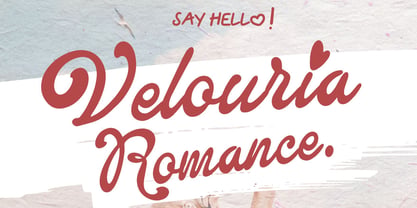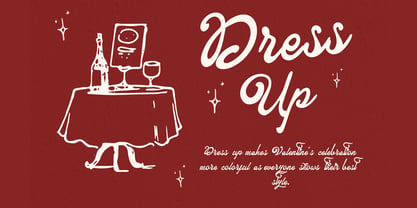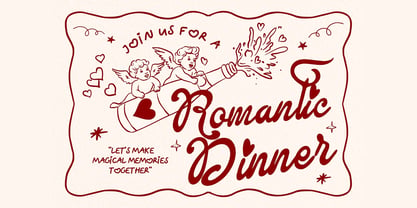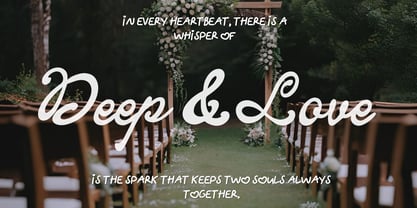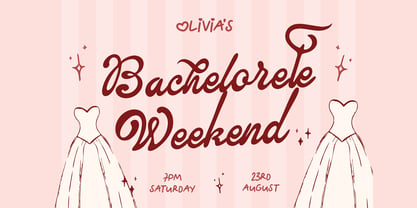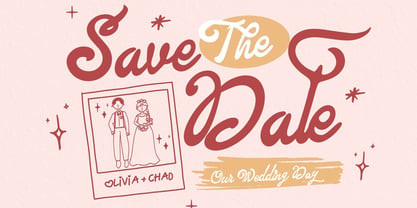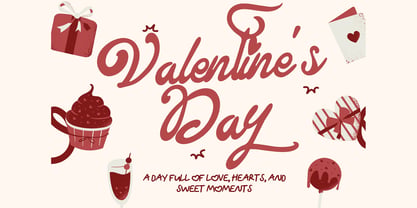
Velouria Romance
by Maghrib Type
The Velouria Romance Font Family was designed by Rizky Setyaludin and published by Maghrib Type. Velouria Romance contains 1 styles. More about this family
romantic vibes. With smooth flowing strokes, charming curves, and playful swashes, this font brings a warm handwritten feel that is both stylish and memorable. Designed to capture the beauty of love and summer romance, Velouria Romance is perfect for a wide range of creative projects such as Valentine designs, wedding invitations, movie titles, posters, greeting cards, packaging, branding, logos, and feminine product designs. Whether you want something dreamy, classy, or full of heartfelt charm, Velouria Romance will make your typography stand out with a romantic touch. Add a little love to your designs with Velouria Romance.
Designers: Rizky Setyaludin
Foundry: Maghrib Type
Maghrib Type is an independent type foundry specializing in handcrafted-style fonts that capture authenticity and expressiveness. Founded with a vision to bring the warmth and uniqueness of handwriting into the digital world, we blend human touch with technical precision to create fonts that are both functional and full of character. With a strong commitment to quality and originality, each of our typefaces is designed to deliver a natural and emotional feel, making them the perfect choice for designers seeking a personal touch in their projects. We believe that every stroke tells a story, and through our fonts, we strive to help people express their ideas in a more vivid and meaningful way.